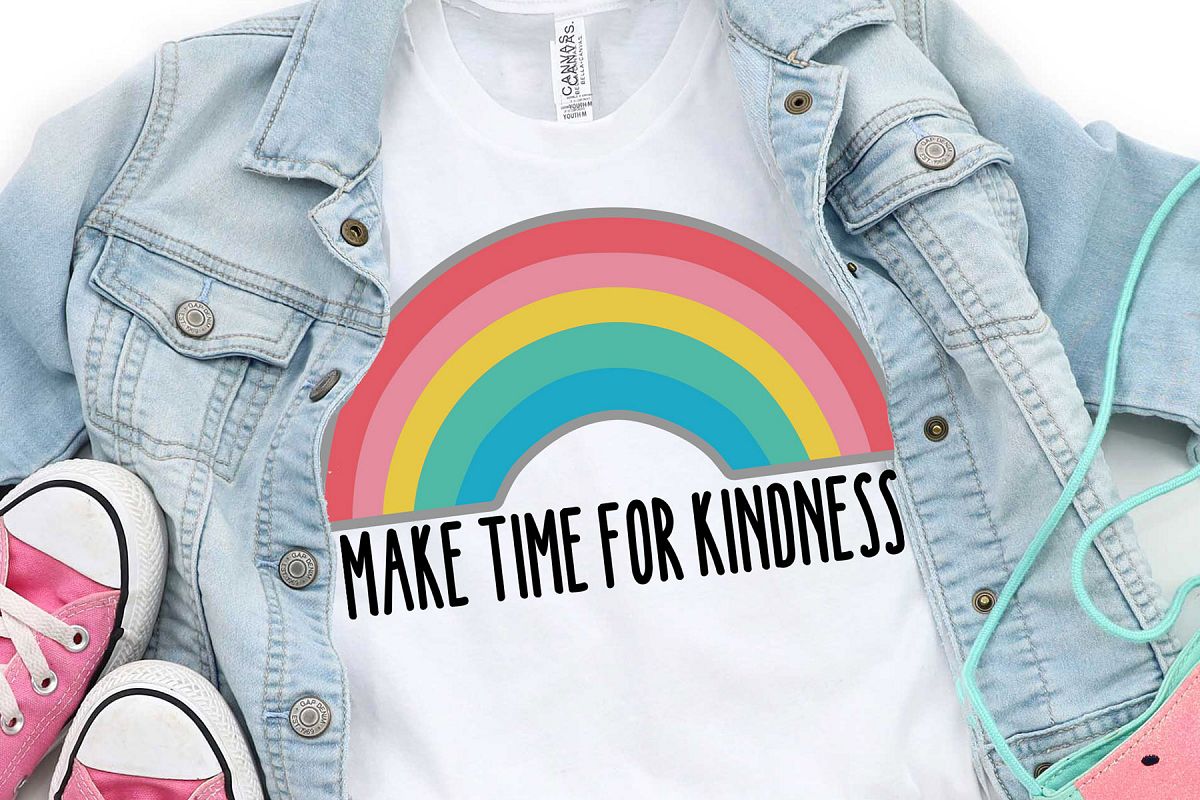
MAKE TIME FOR KINDNESS FONT
MAKE TIME is an all caps, adorable statement font that can be used to make anything and it will look amazing
The font is perfect for worksheet, bulletin boards and cutting with your Cutter.
One of the things that is very different about this font is that is was originally designed to be cut with a machine like Cricut.  You will get the letters in OTF and SVG.